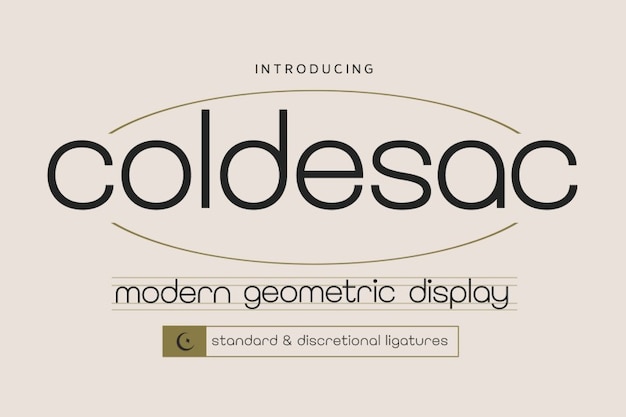
Coldesac Font
Drizy Studio
Coldesac embodies geometric precision with a modern twist, featuring clean lines and basic forms. Its simplicity exudes a contemporary aesthetic, making it perfect for sleek designs across various mediums. Embrace Coldesac for a minimalist approach that effortlessly elevates your projects.